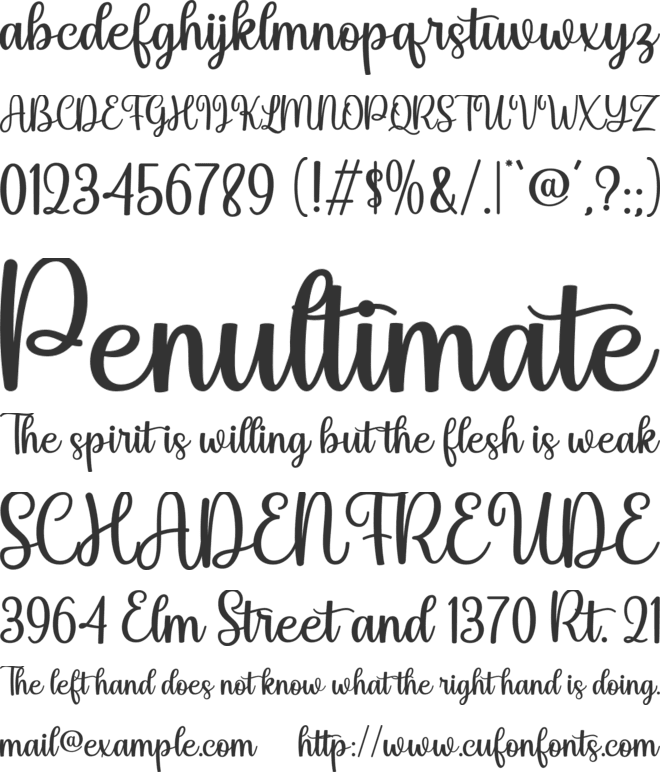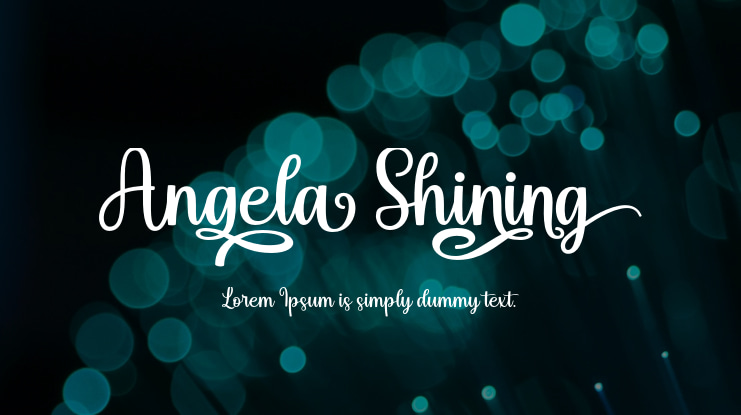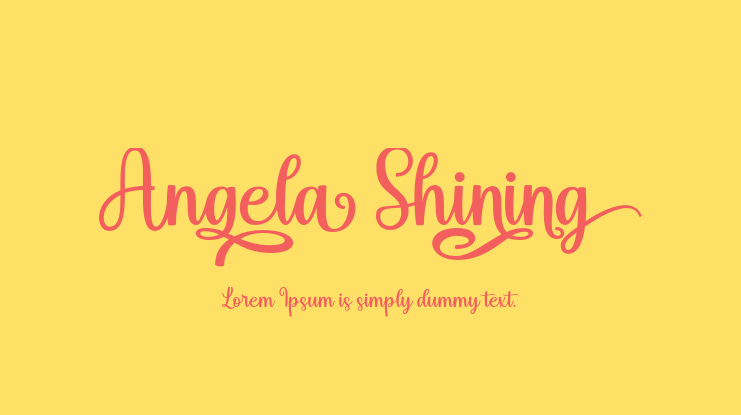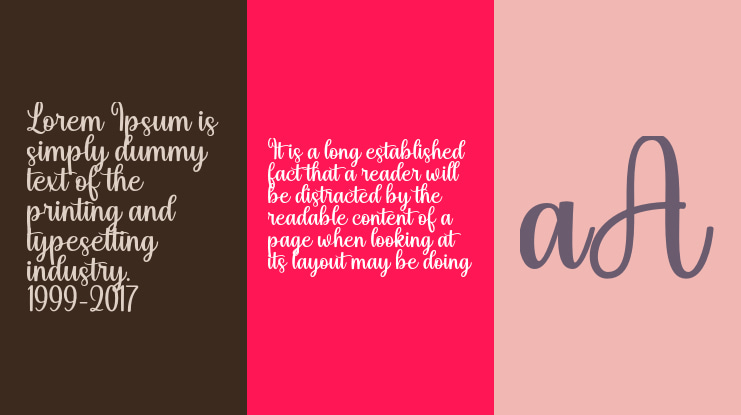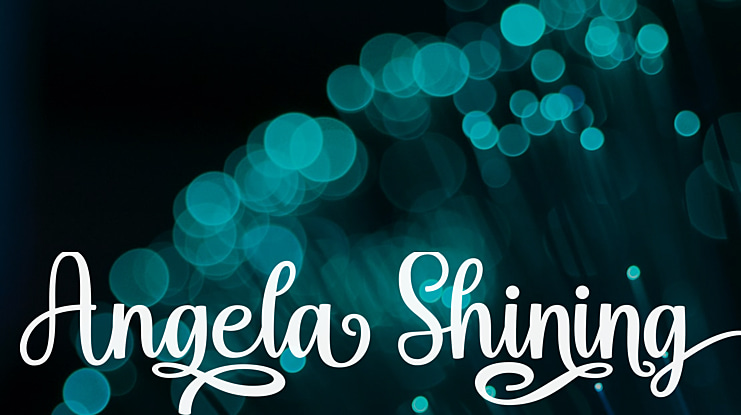
Angela Shining Font
Introducing Angela Shining, an exquisite and sentimental handwritten typeface. Perfectly suited for expressing gratitude on thank you cards, adding charm to quotes, elevating the elegance of wedding invitations, conveying warmth through greeting cards, imparting a personal touch to business cards, enhancing brand identities with logos, and enhancing the allure of any design requiring a handcrafted feel.
This font is PUA encoded, granting convenient access to all the charming glyphs and graceful swashes!